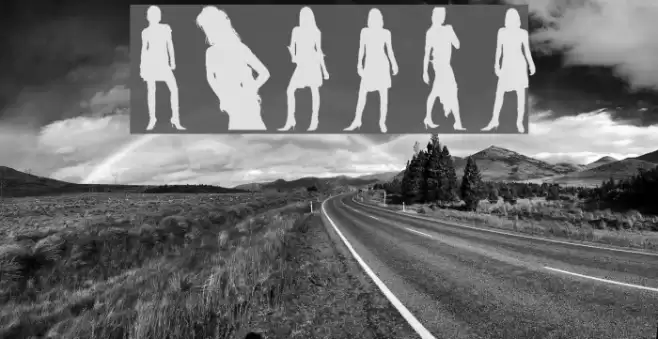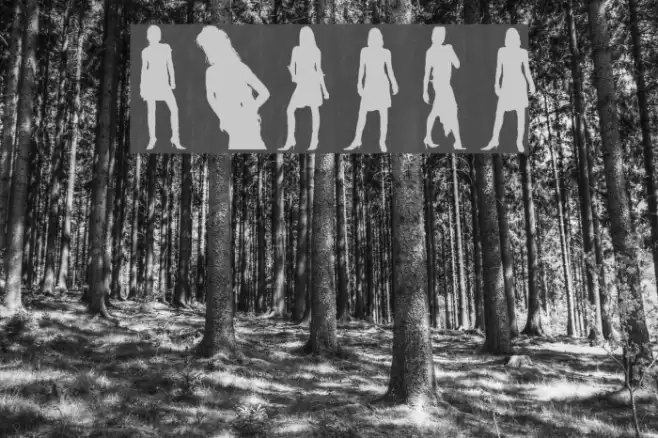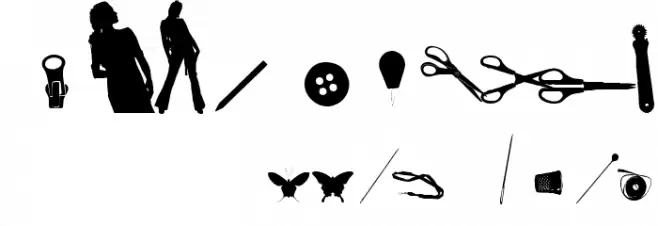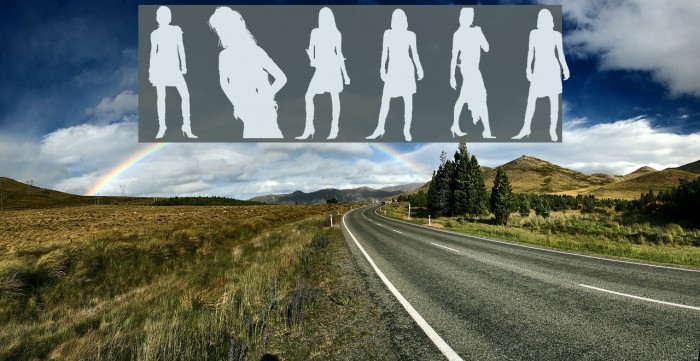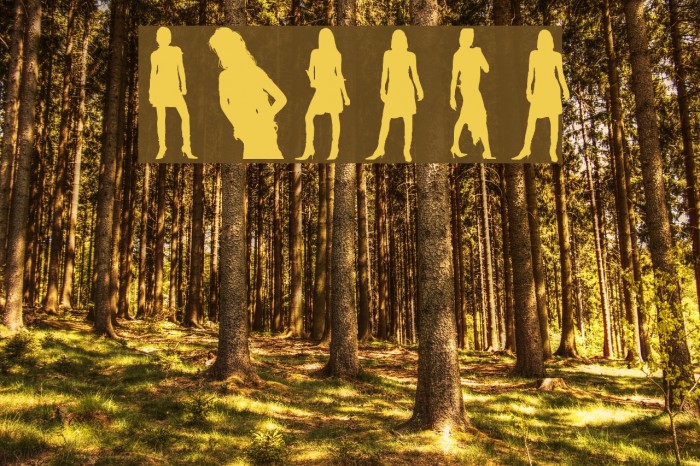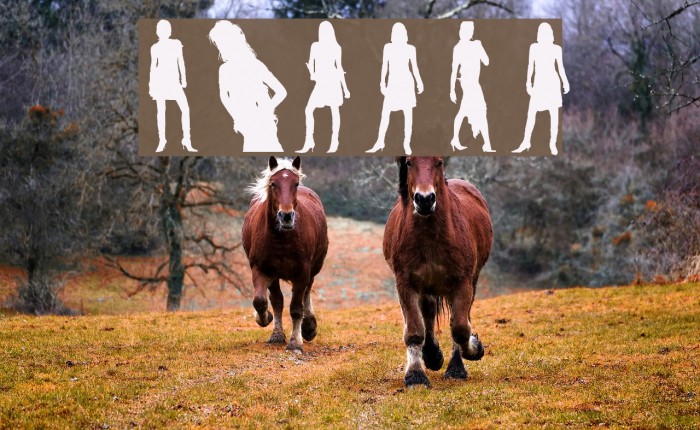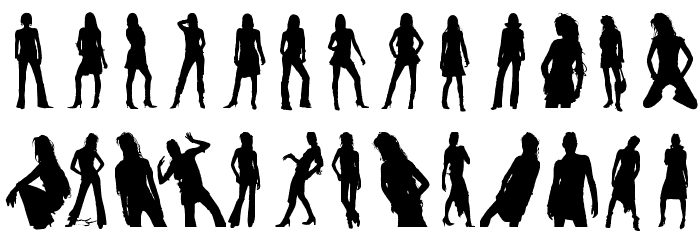
Subeve Font
Subeve Description
A decorative display font consisting of black silhouette figures of women in various poses, along with sewing-related icons such as scissors, buttons, needles, and butterflies.
Decorative silhouette figures and sewing-themed icons font from Dingbats fonts.
- Proposed Projects: Fashion design branding, sewing and craft projects, posters, and creative artwork.
- Overall Style: Artistic, Thematic
- Use Case: Logos, Headlines, Decorative elements